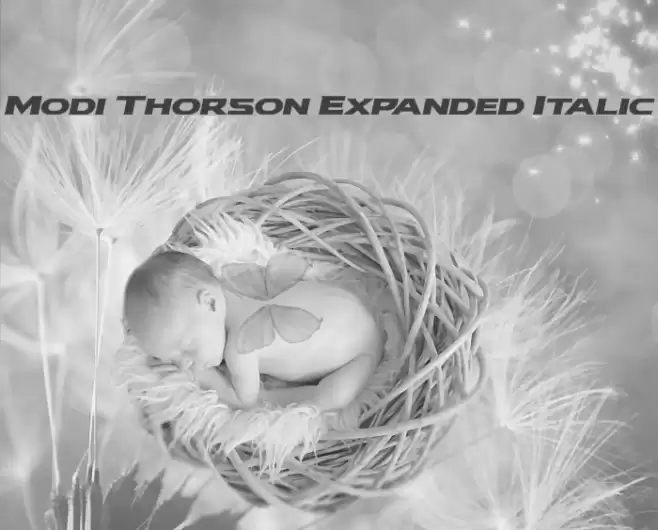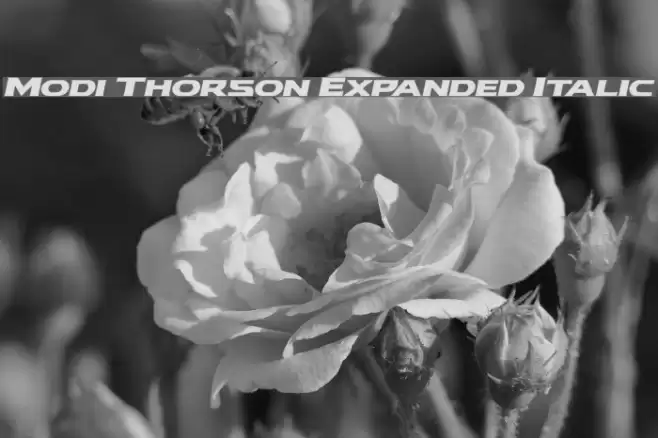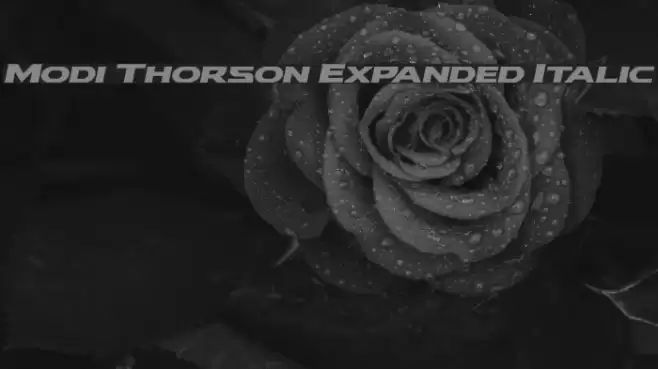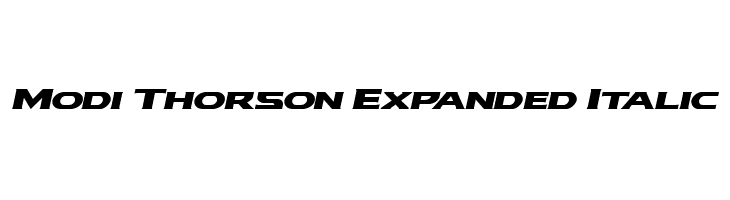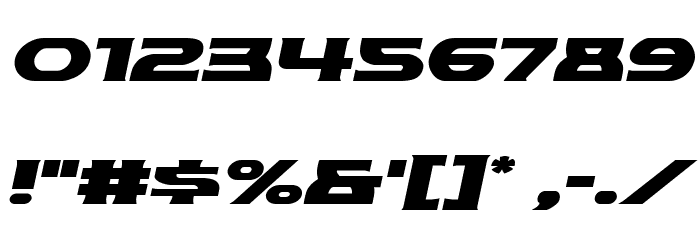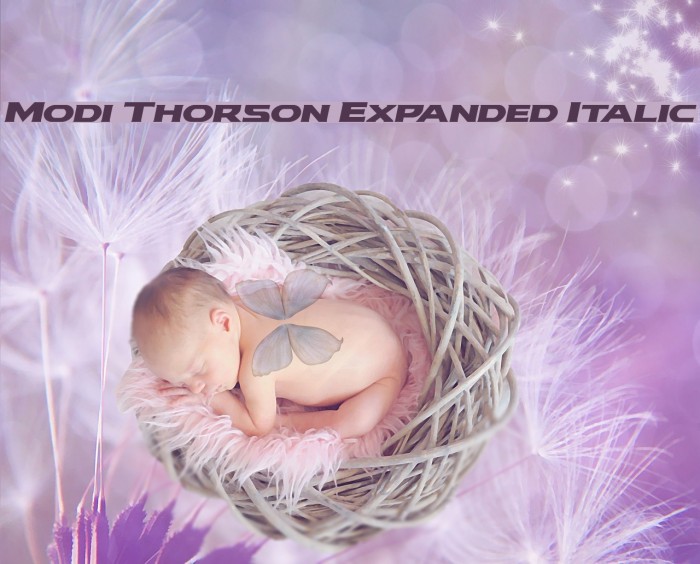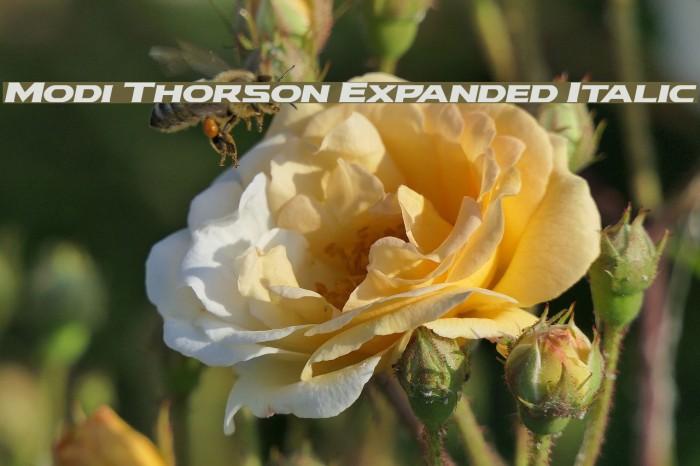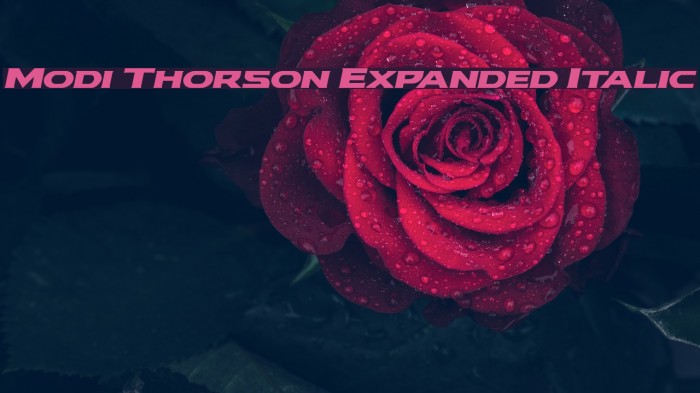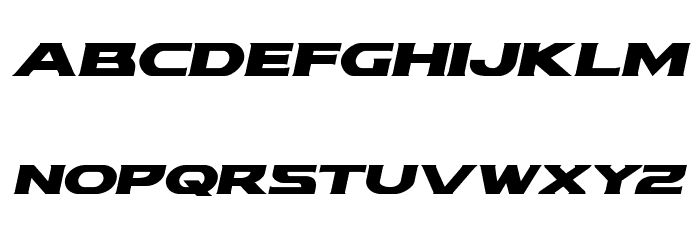
Modi Thorson Expanded Italic Font
Modi Thorson Expanded Italic Description
This font features a bold and dynamic style with an expanded width and italic slant, giving it a sense of motion and energy. The characters are designed with sharp angles and clean lines, creating a futuristic and modern appearance. The uppercase and lowercase letters maintain a consistent design, ensuring readability while adding a unique flair. The numerals are equally bold, matching the overall aesthetic of the alphabet. Special characters are included, each crafted to fit seamlessly with the rest of the font. This font is ideal for projects that require a strong visual impact, such as sports branding, technology-related designs, or dynamic advertising.
A bold, expanded, and italic font with a modern, dynamic style from Uncategorized fonts.
- Proposed Projects: Ideal for sports branding, tech designs, and dynamic advertising.
- Width: Expanded
- Overall Style: Modern, Dynamic
- Use Case: Headlines, Logos, Branding